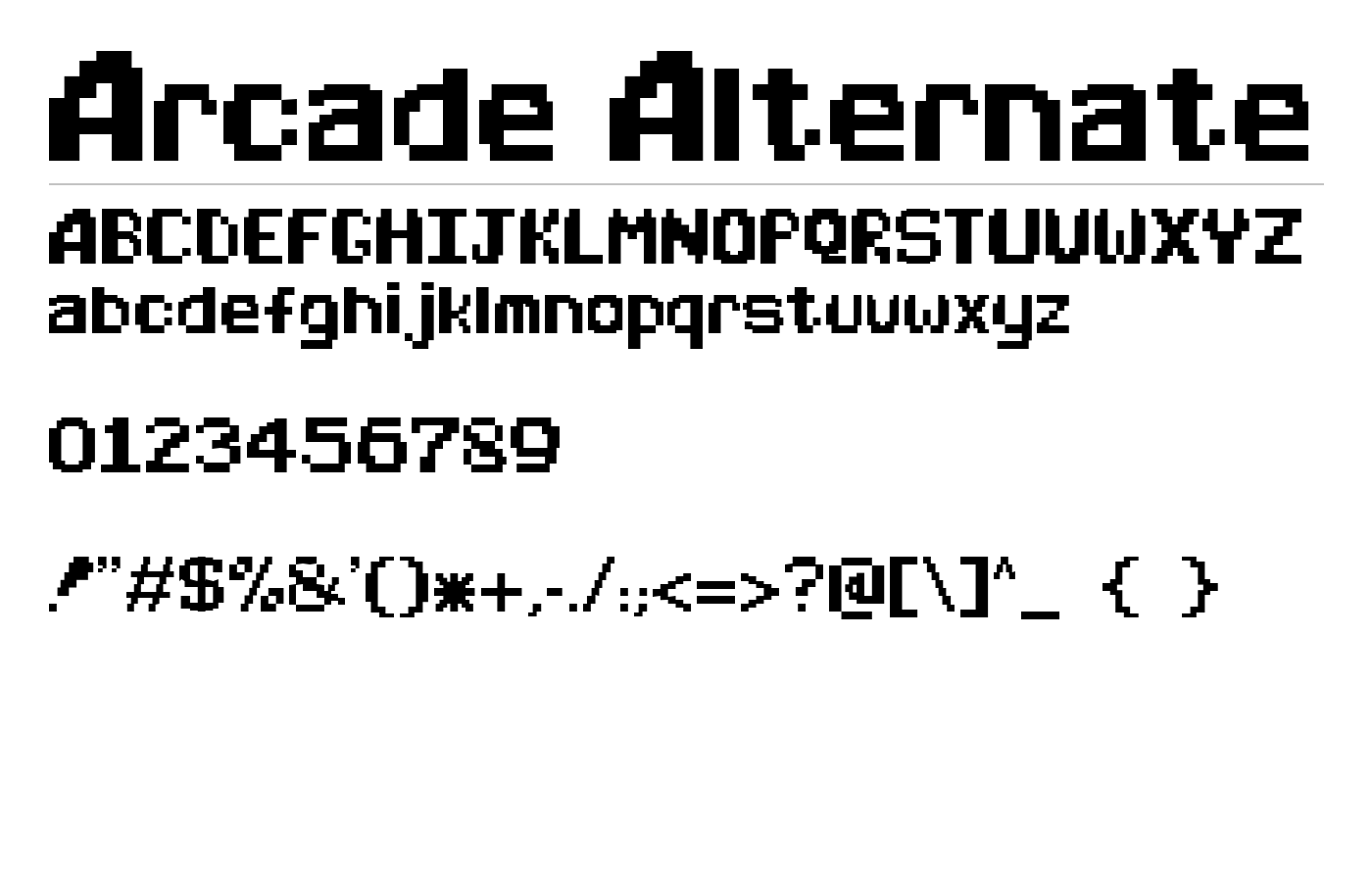
Arcade Alternate is a pixelated sans serif font that captures the retro charm of classic arcade game typography with its blocky, geometric letterforms. Its uniform weight and square shapes give it a bold, sturdy appearance, making it ideal for designs that want to evoke nostalgia or a digital, vintage video game feel. This font works great in headlines, logos, and gaming-related projects where a playful yet tech-inspired style is desired.
Arcade Alternate Font